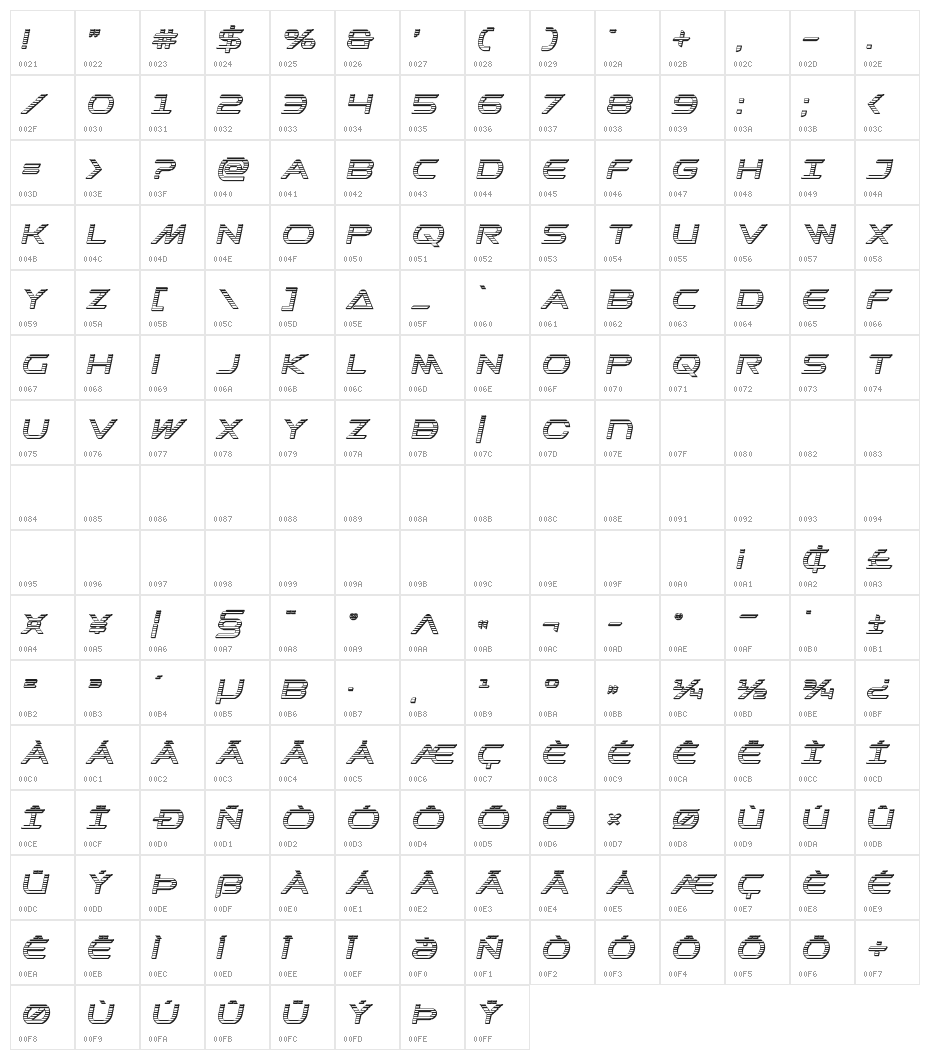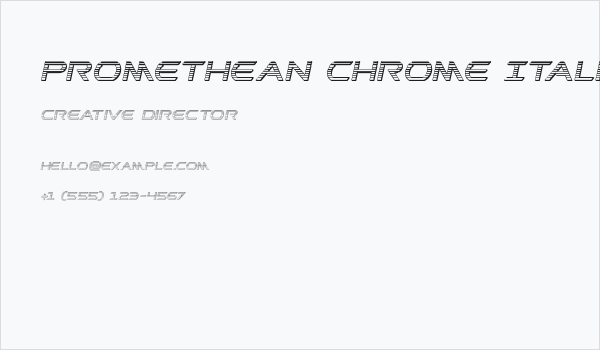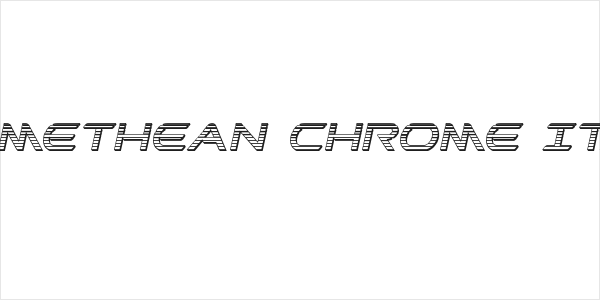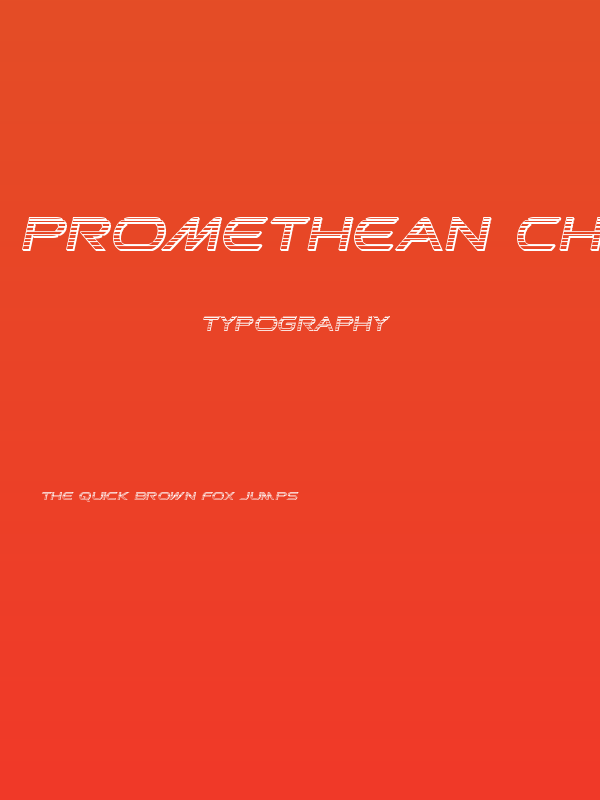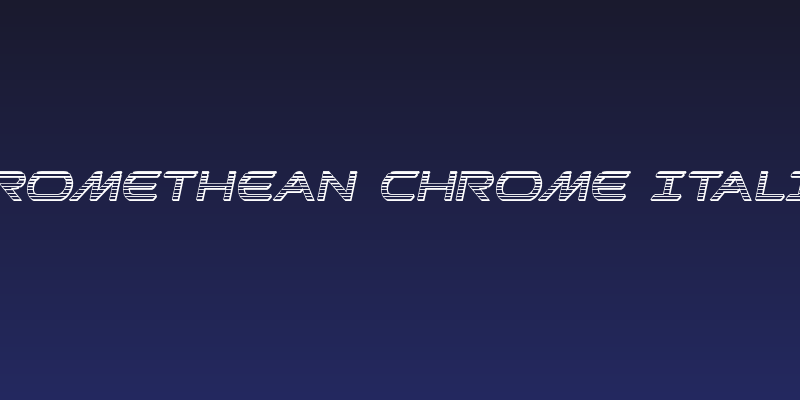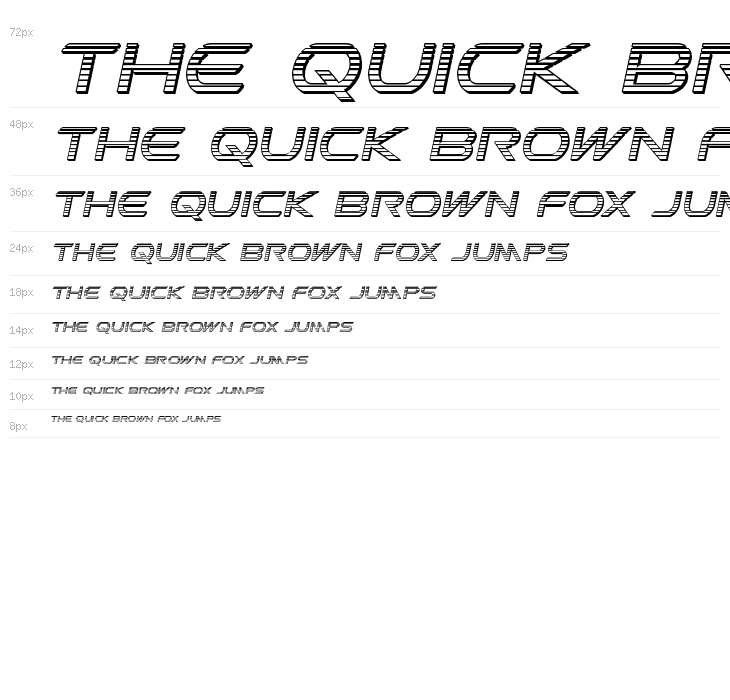
Promethean Chrome Italic Font
Promethean Chrome Italic Description
This font features a futuristic and dynamic design, characterized by its italicized and chrome-like appearance. The letters are constructed with a series of parallel lines that give a sense of movement and modernity. The geometric shapes and angular cuts add a technical and industrial feel, making it stand out with a unique, three-dimensional effect. The font maintains a consistent line thickness throughout, providing a uniform look. Its distinct style is both eye-catching and versatile, suitable for various creative applications.
Proposed ProjectsIdeal for technology branding, sci-fi themed projects, video game titles, and modern advertising campaigns.